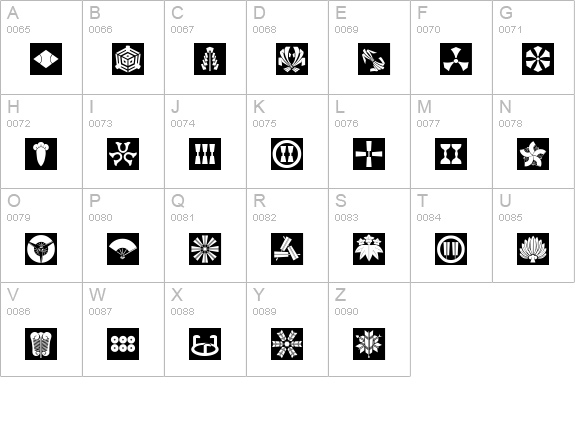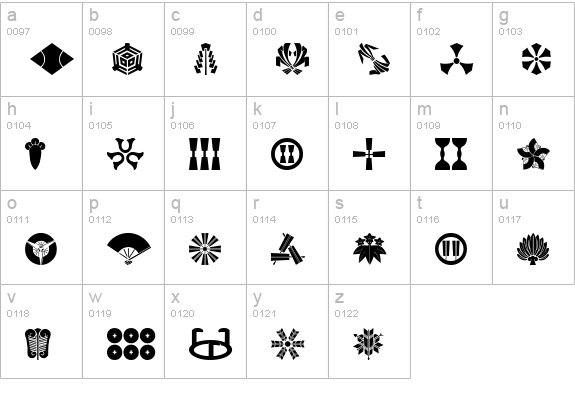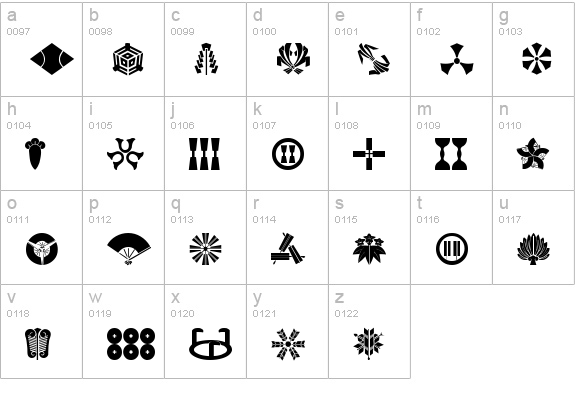
Oriental Icons II Font Details
Oriental Icons II is a captivating and intricate font featuring a stunning collection of traditional Asian-inspired symbols and icons. This unique font is perfect for adding a touch of elegance and cultural flair to your designs. From delicate cherry blossoms to majestic dragons, Oriental Icons II offers a wide range of beautifully crafted characters that will enhance any project with a touch of exotic charm. Best of all, Oriental Icons II is available for free download at FontsMarket.com, making it easily accessible for designers looking to add a touch of the Orient to their work. Whether you're creating invitations, posters, or branding materials, this font is sure to make a bold statement and leave a lasting impression. Download Oriental Icons II today and bring a touch of the Far East to your designs!